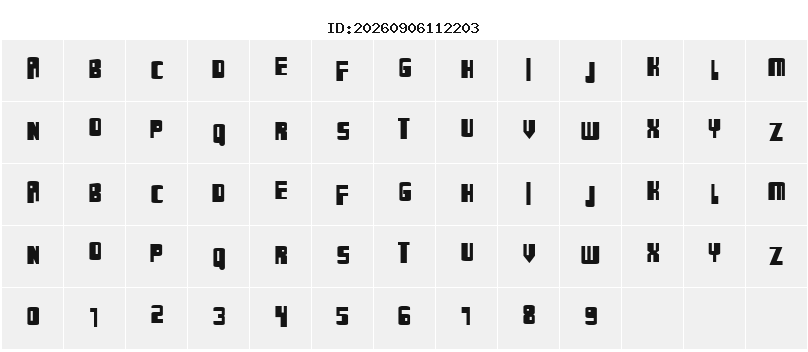
Tattooed Sailor Preview
• Font Name: Tattooed Sailor
• Full Font Name: Tattooed Sailor
About Tattooed Sailor.ttf
Tattooed Sailor.ttf is a modern, elegant sans-serif font designed for ultimate readability and visual harmony. Perfect for branding, headlines, web design, and print materials.